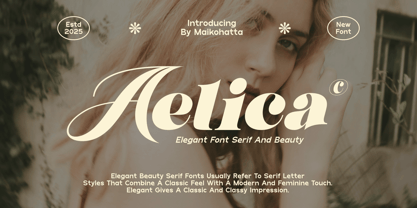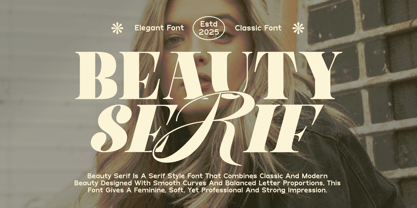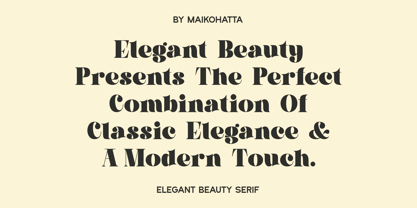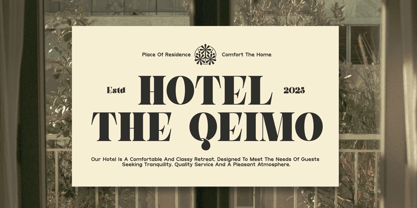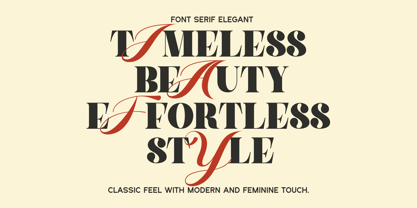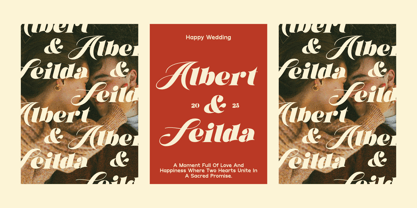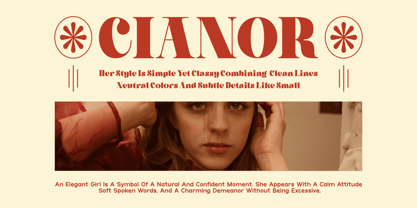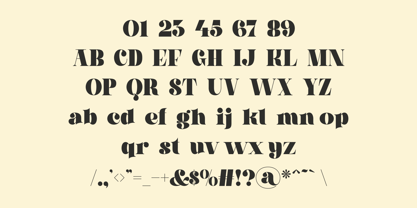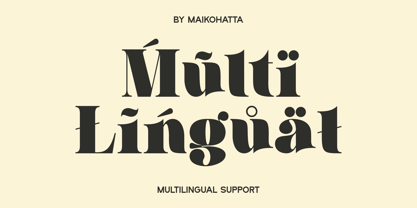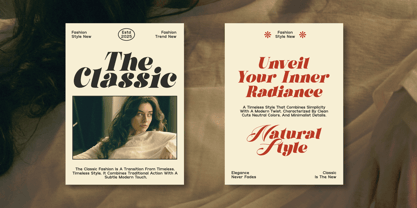
Aelica
by Maikohatta
The Aelica Font Family was designed by Gilang Ternadho and published by Maikohatta. Aelica contains 2 styles and family package options. More about this family
Introducing our new product Aelica - Elegant Serif Font
This font is a type of letter that has special characteristics that create the impression of luxury, elegance and firmness. This font involves a series of design elements such as balanced thin and thick lines, gentle curves, and elegant and clean serifs. The sharp corners and fine details of each character create a highly aesthetic impression and exude an air of elegance.
Designers: Gilang Ternadho
Foundry: Maikohatta